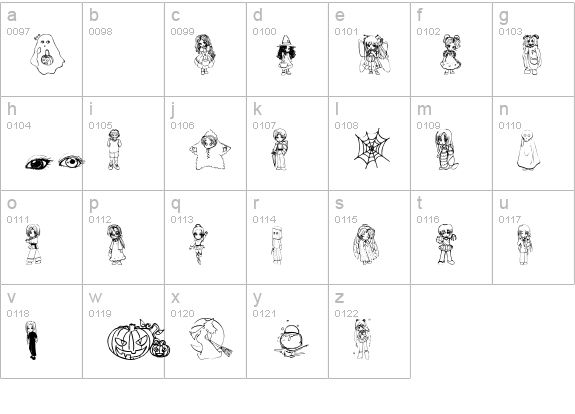
halloween2001 Font Details
Introducing Halloween2001 font, a hauntingly captivating typeface that captures the essence of the spookiest night of the year. This font is the perfect choice for all your Halloween-themed projects, whether it be designing party invitations, creating eerie banners, or crafting chilling posters. With its intricate and elaborate design, Halloween2001 font brings to life the spirit of All Hallows' Eve, with every letter exuding an air of mystery and enchantment. Each character of this font is carefully crafted to resemble the iconic symbols of Halloween, from spooky bats and wicked witches to creepy pumpkins and haunted houses. The attention to detail in this font is truly remarkable, making it a standout choice for any Halloween-themed design. But what makes Halloween2001 font even more bewitching is the fact that it is freely available to download at FontsMarket.com. Yes, you read that right! This amazing font can be yours without spending a penny. FontsMarket.com is known for offering a vast collection of high-quality fonts, and Halloween2001 font is no exception. It's the perfect opportunity to enhance your Halloween designs without breaking the bank. So, whether you're a professional designer looking to add an extra touch of spookiness to your projects or simply a Halloween enthusiast wanting to make your party invitations stand out, Halloween2001 font is the ideal choice. Download it for free at FontsMarket.com and let your creativity run wild with the eerie charm of this captivating typeface. Don't miss out on this opportunity to bring your Halloween designs to life with Halloween2001 font, the free font that will give your creations a truly chilling edge.